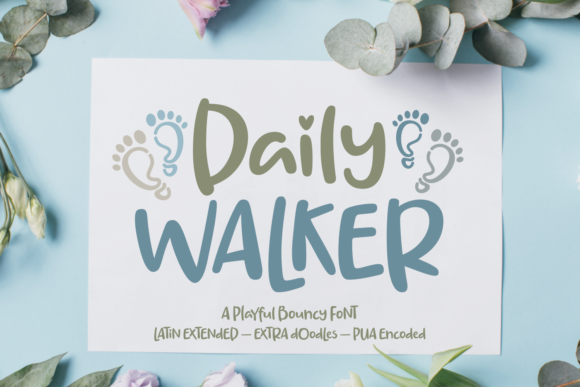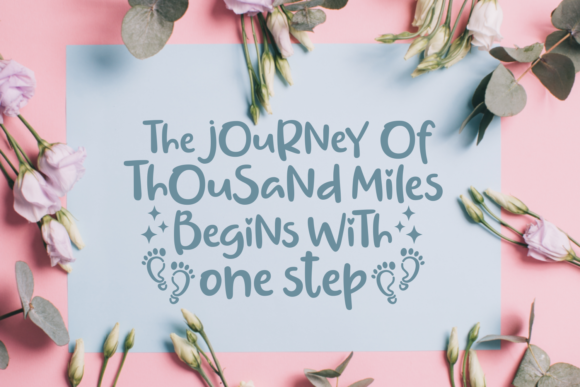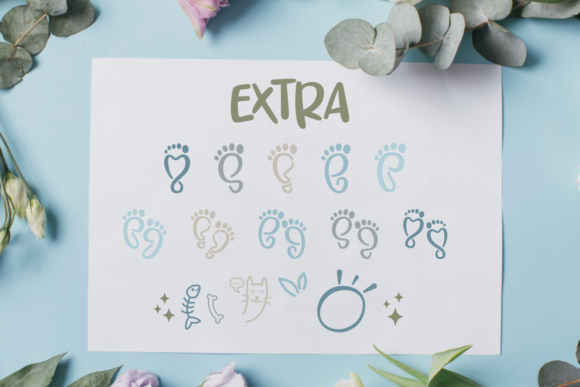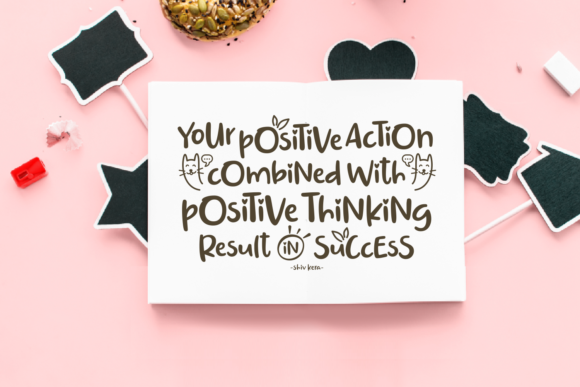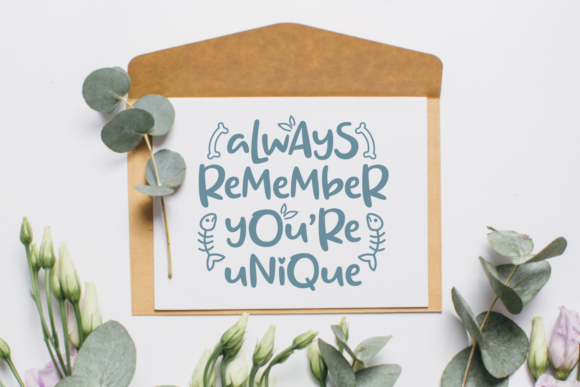
Daily Walker Font
About Daily Walker Font
Inspired by a baby’s first steps, Daily Walker is a cute and adorable font that will make any design project stand out.